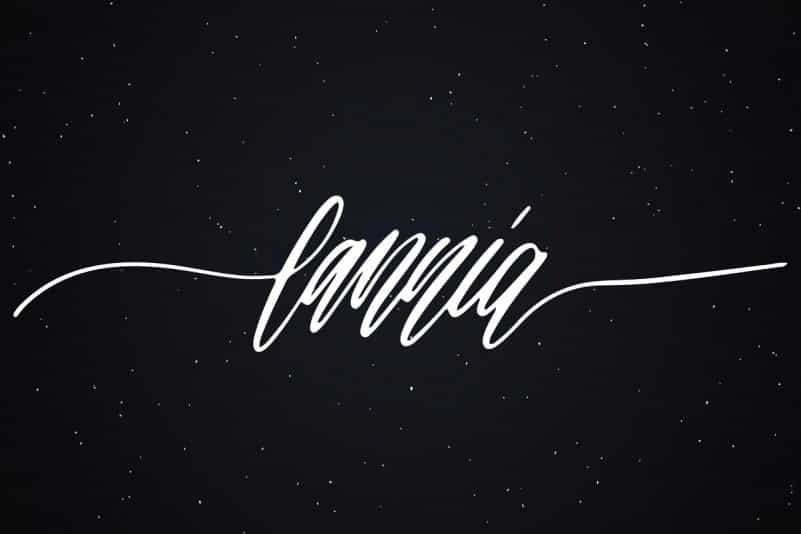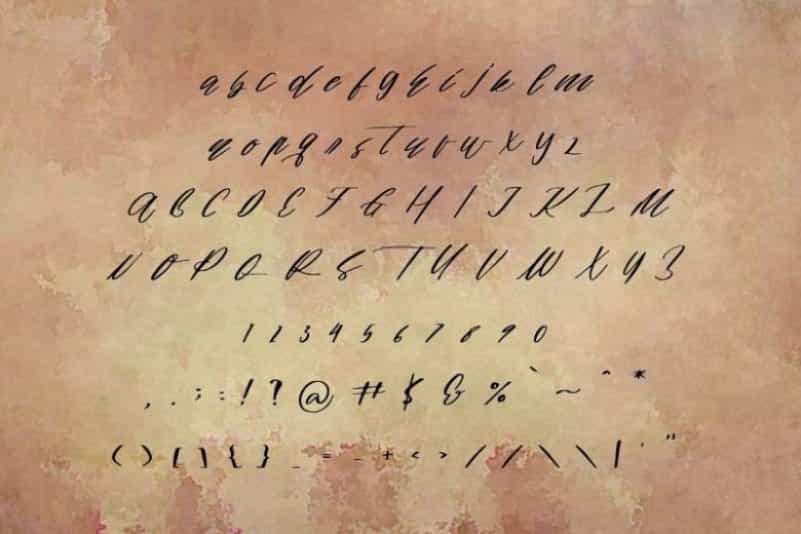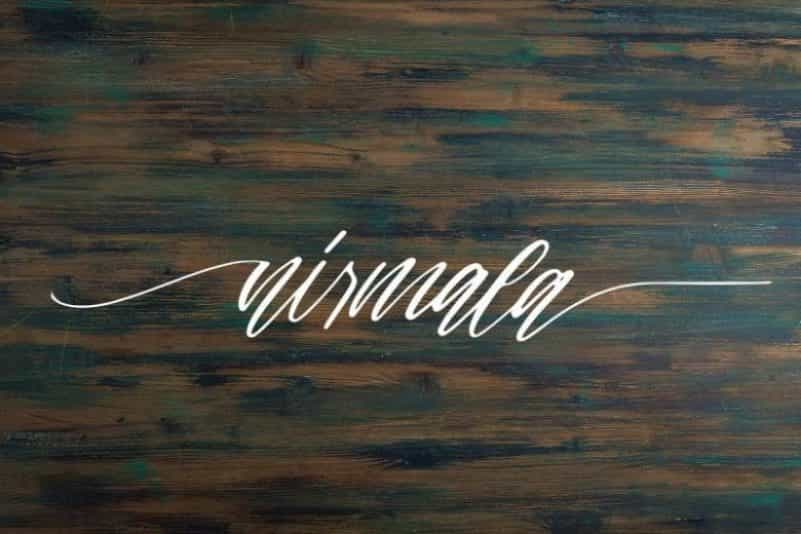
Meet Lannia Font, a lovely flowing font with attractive features. Lannia Font has alternates, ligatures, and left & right swash options that make it really powerful and full-fledged font. In general, Lannia is feminine, flowing and just a bit of effortlessness.